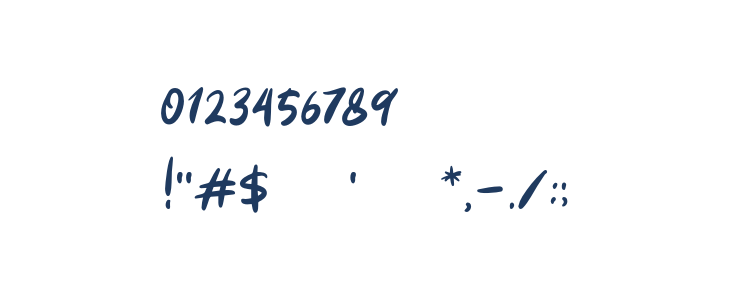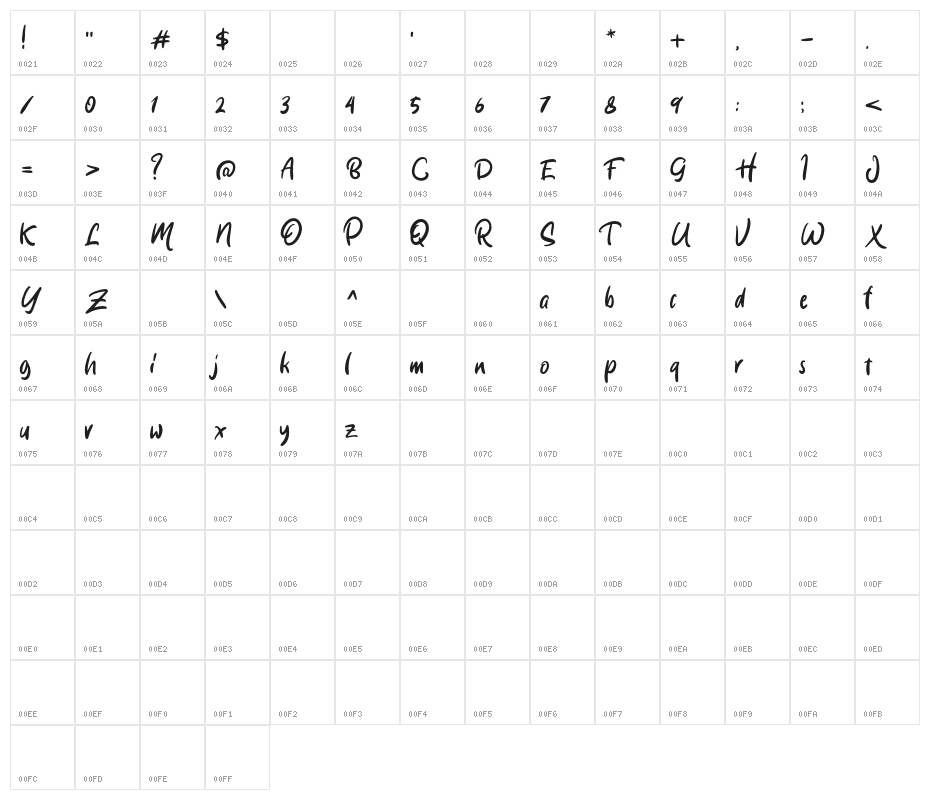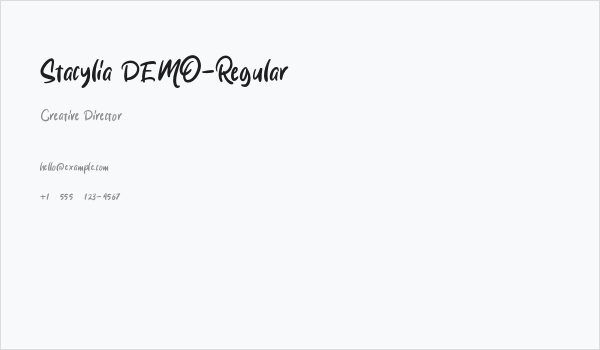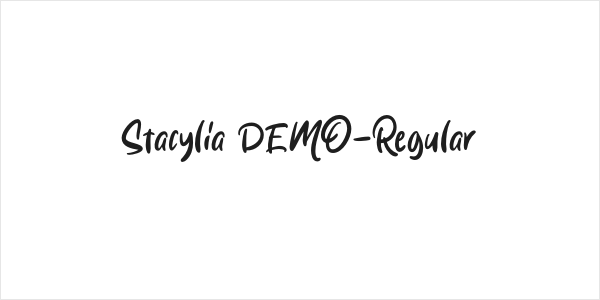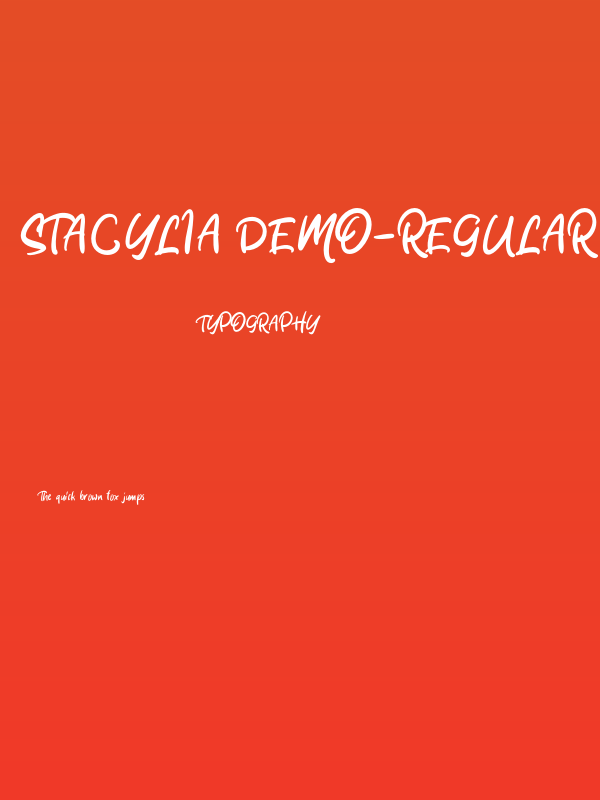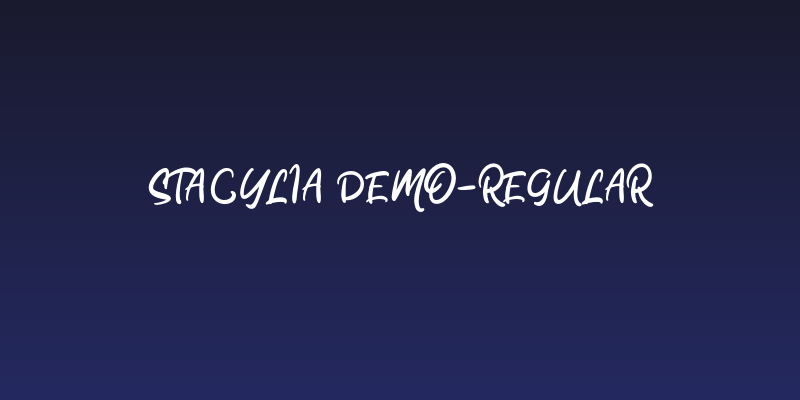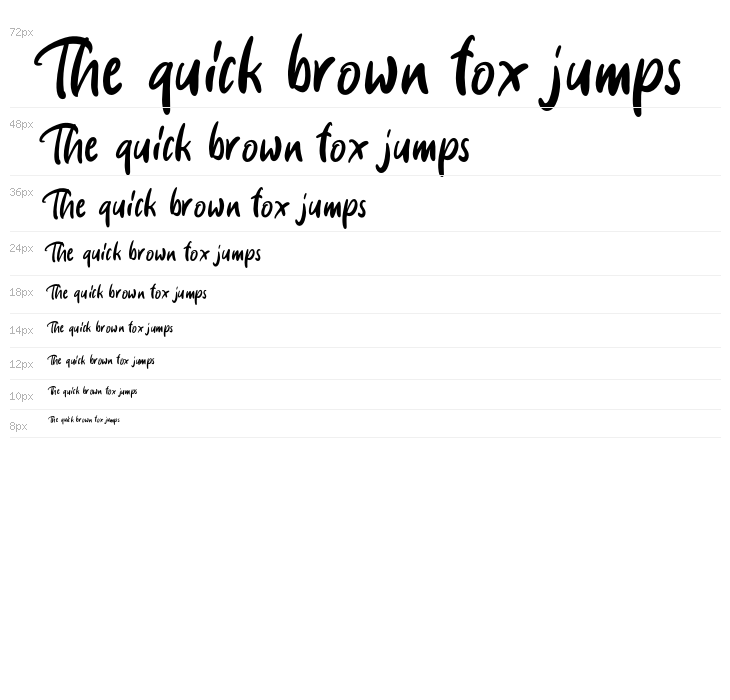
Stacylia DEMO-Regular Font
Stacylia DEMO-Regular Description
This font features a lively and energetic handwritten style, characterized by its fluid and dynamic strokes. The letters exhibit a playful and casual appearance, with varying stroke widths that add a sense of movement and personality. The uppercase letters are bold and prominent, while the lowercase letters maintain a consistent flow, enhancing readability. The numerals are clear and distinct, matching the overall style of the alphabet. Special characters are creatively integrated, maintaining the font's cohesive look. This font is ideal for projects that require a personal and informal touch, such as invitations, greeting cards, or creative branding.